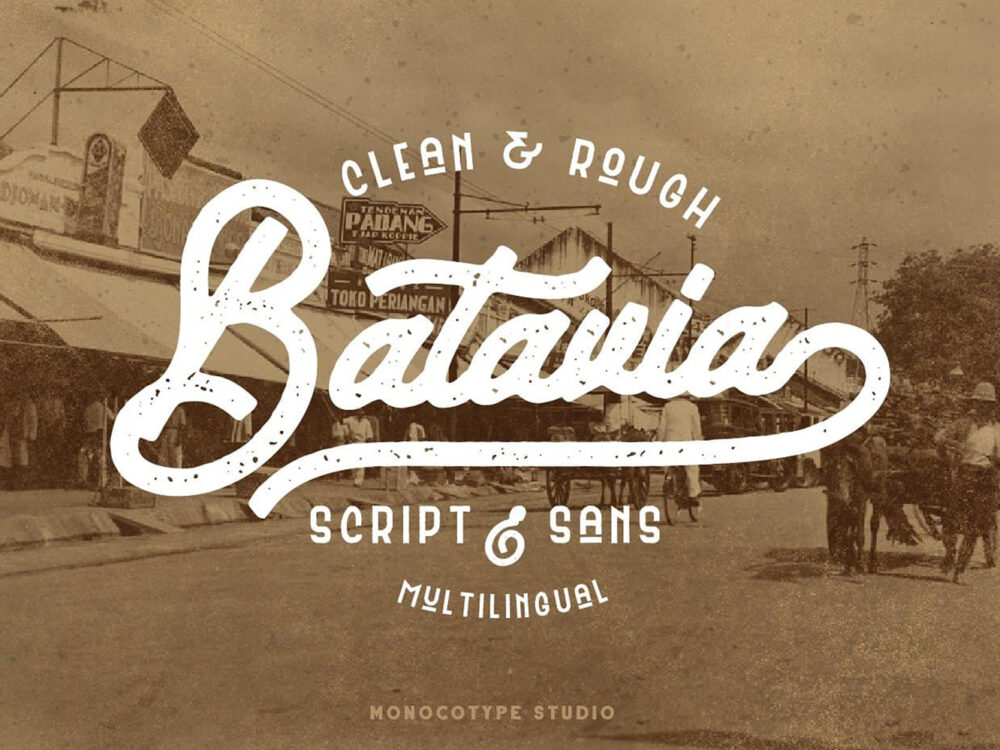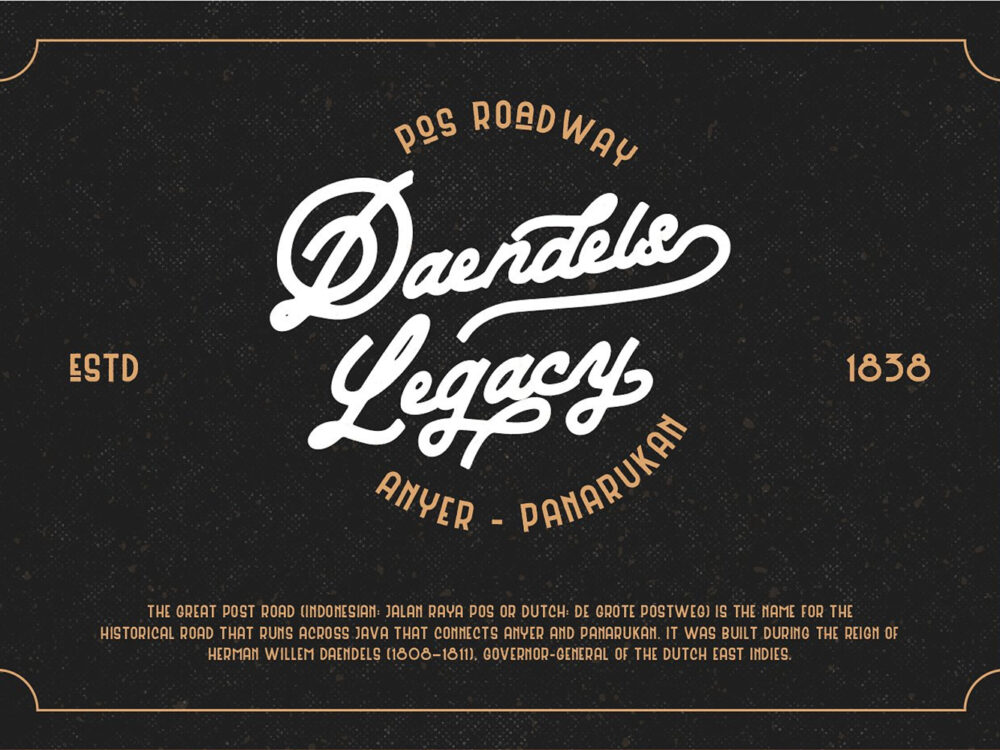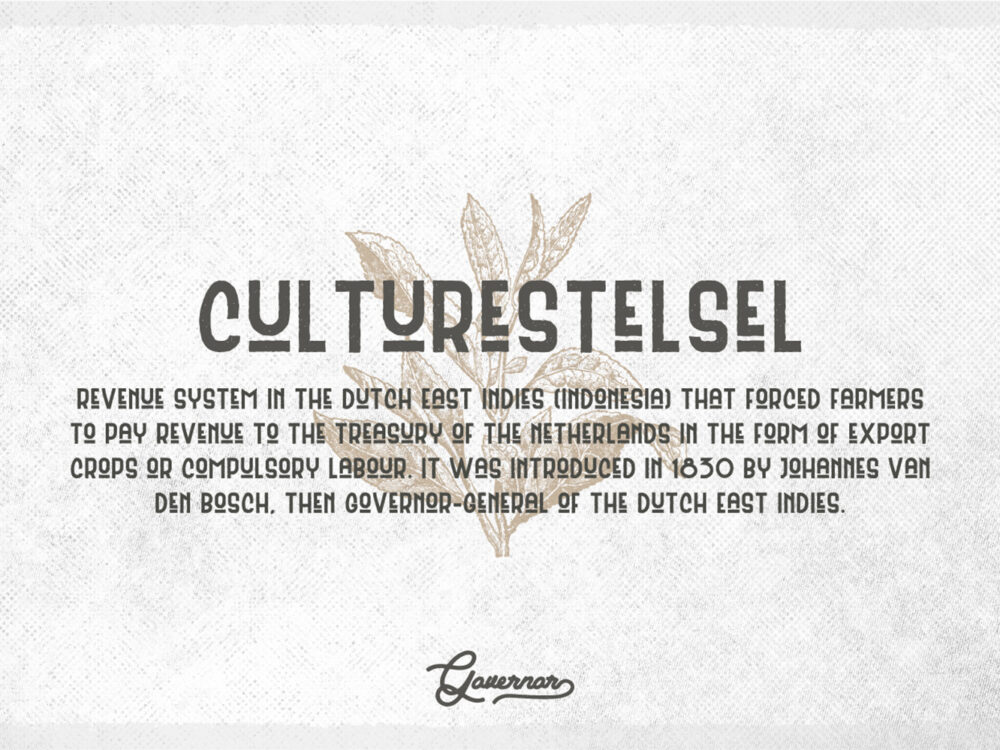
Batavia Free Font Duo
Batavia Free Font Duo is a beautiful handwritten font inspired by a city in the Dutch East Indies now called Jakarta. The font is very suitable for various vintage-style projects. These can be posters, cards, invitations, and more. So, if you wish to access more features and use it for commercial work, go get the full version as well.